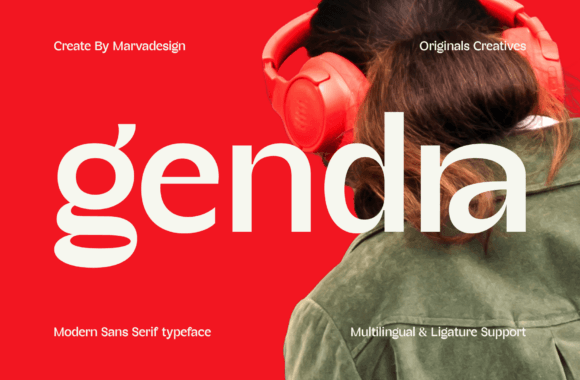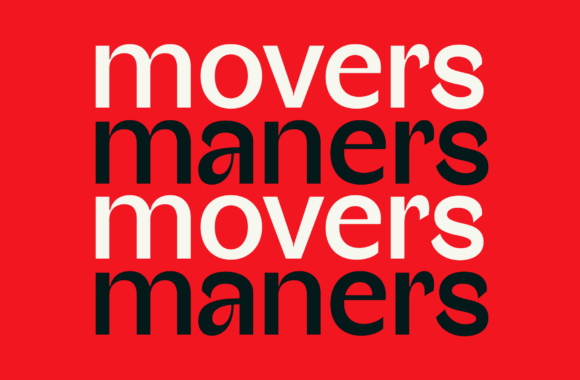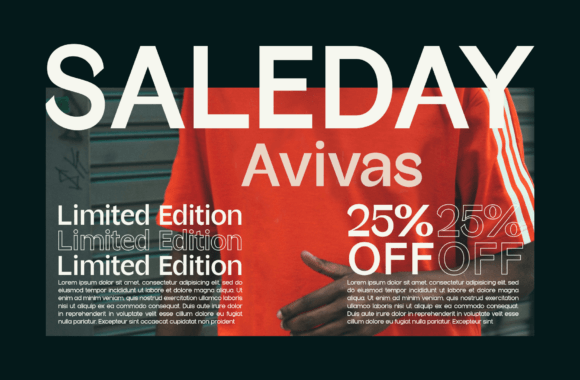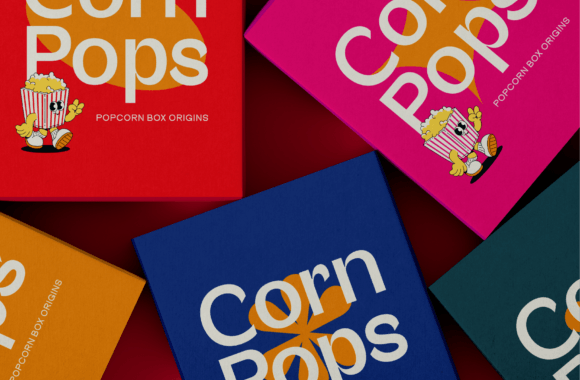
Gendra Font: Modern Sans Serif for Impactful Branding & Logo Design
About the Gendra Font
Experience the unique personality of Gendra Font, a font designed for impact. Introducing Gendra, a modern sans-serif font characterized by its clean and minimalist design. It features a regular style with unique touches in several lowercase characters, giving it a distinctive and contemporary feel. This font is versatile and works well for branding, sale posters, product designs, and various creative projects. Its sleek and stylish appearance makes it an excellent choice for professionals seeking a modern and impactful typeface.
Gendra’s clean lines and subtle character variations make it ideal for headlines, short-form text in marketing materials, and logos. It excels in branding applications requiring a modern and sophisticated aesthetic, particularly for technology, fashion, or minimalist product design. However, its minimalist nature makes it less suitable for body copy or lengthy paragraphs, where readability suffers.
Pairing Gendra effectively requires considering its contemporary feel. A classic serif like Garamond or a more geometric sans-serif like Futura would provide a strong contrast, offering a balance of modern and traditional. For a softer contrast, consider pairing it with a rounded sans-serif such as Lato.
Gendra projects a confident, modern, and subtly sophisticated personality. Its versatility lies in its ability to convey professionalism while retaining a contemporary edge, making it well-suited for brands that prioritize a clean and impactful visual identity.